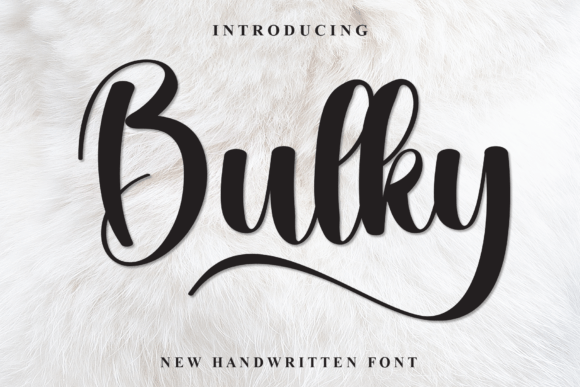
The Bulky Font: A Charmingly Handwritten Display Font to Elevate Your Designs
Have you ever been in the middle of working on a project, and suddenly, you’re stuck on finding the perfect font? I recall a recent experience where I was designing a wedding invitation for a client, and I just couldn’t find a font that captured the playful yet elegant vibe they were looking for. That’s when I stumbled upon the Bulky Font, and it instantly became my go-to choice. In this article, I’ll share my journey with this delightful font, its features, and how you can make the most of it in your designs.
First Impressions: A Personal Review
As soon as I started using the Bulky Font, I was smitten. Here’s what I love about it:
- ✨ Unique Character: The Bulky Font has a distinct, charmingly handwritten feel that’s perfect for display purposes.
- ✅ Elegant yet Playful: It strikes the perfect balance between elegance and playfulness, making it suitable for a wide range of design projects.
- 💕 Emotional Connection: The soft, endearing touch of this font helps create an instant emotional connection with your audience.
Like any font, the Bulky Font isn’t without its quirks:
- 🤔 Limited Use Cases: Due to its display nature, it’s best used in moderation and not for body text.
- ⚠️ Glyph Limitations: While it has a range of glyphs, it might not have every special character you need.
The Story Behind Bulky Font: Designer Inspiration
The Bulky Font was inspired by the need for a more personal, less conventional typeface. Its designer sought to create a font that felt both elegant and playful, perfect for a variety of creative projects. The result is a charmingly handwritten display font that adds a touch of warmth and whimsy to any design.
Q: What makes Bulky Font unique?
A: The Bulky Font’s unique blend of elegance and playfulness, along with its charmingly handwritten feel, sets it apart from other fonts.
Q: Is Bulky Font suitable for body text?
A: Due to its display nature, Bulky Font is best used in moderation and not recommended for lengthy body text.